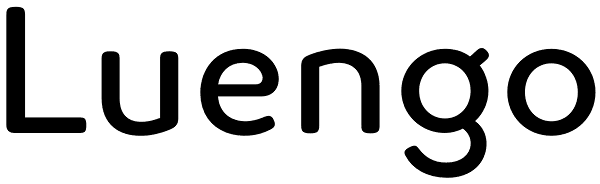
Luengo
Luengo is a modern geometric sans serif font family. Rounded corners give a natural and overall home-felt feel with an accessible air and an elegant touch. Luengo is for display purpose, but it also looks great in longer copy, making this family of...
Luengo Ultra Light
Luengo Light
Luengo Bold
Luengo
Luengo Extra Bold